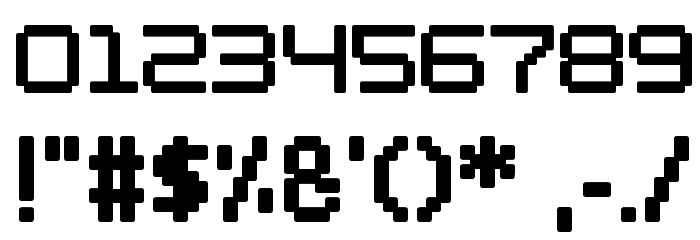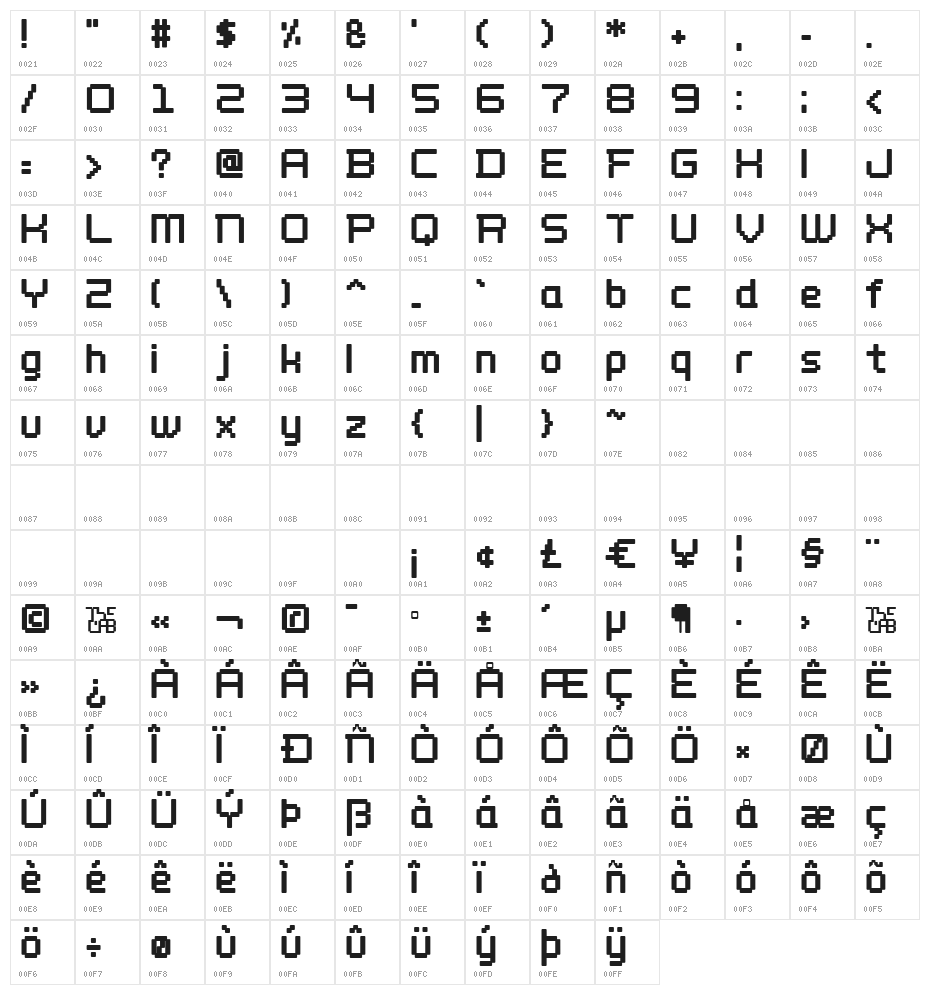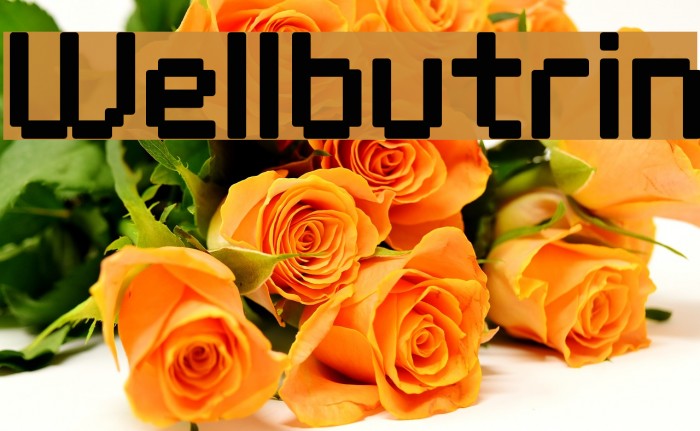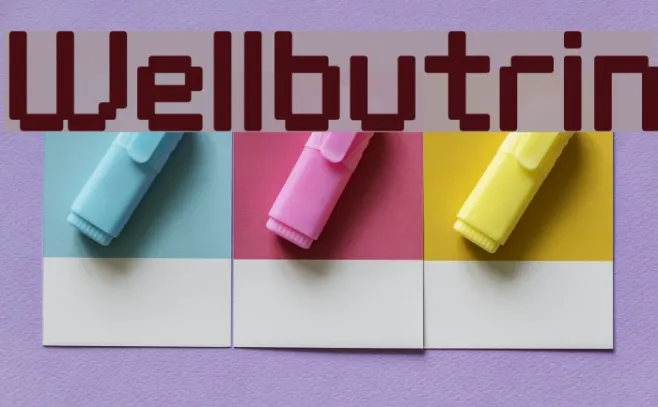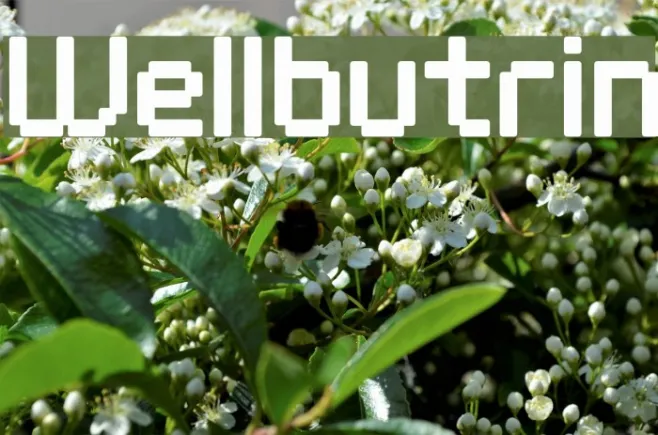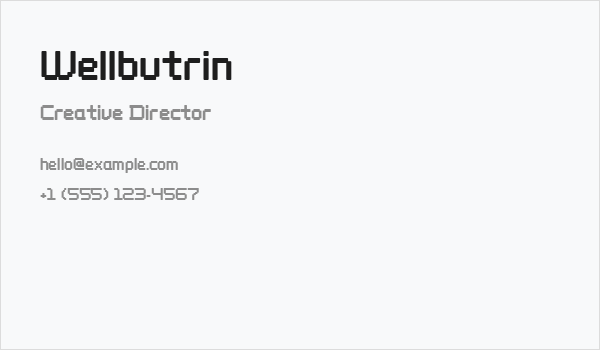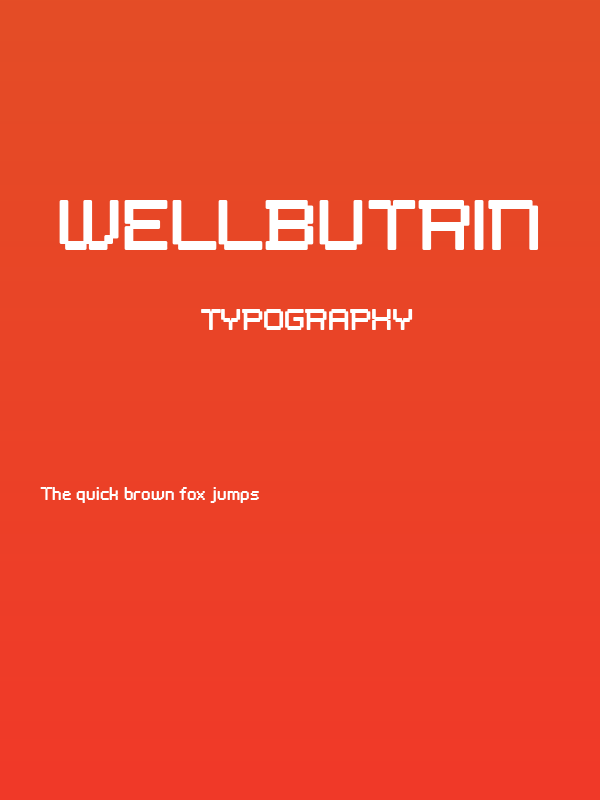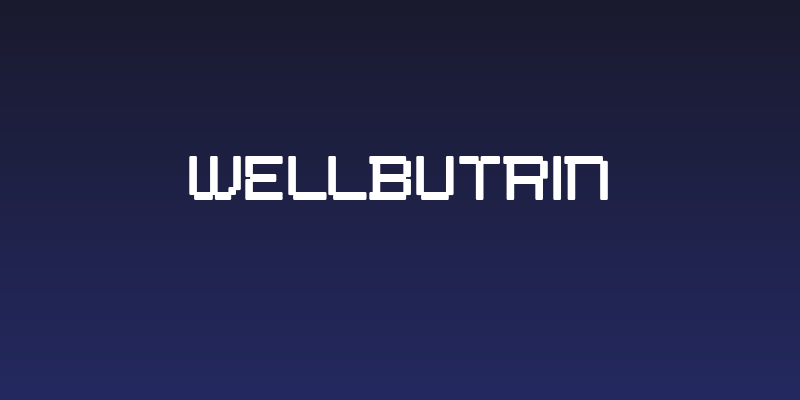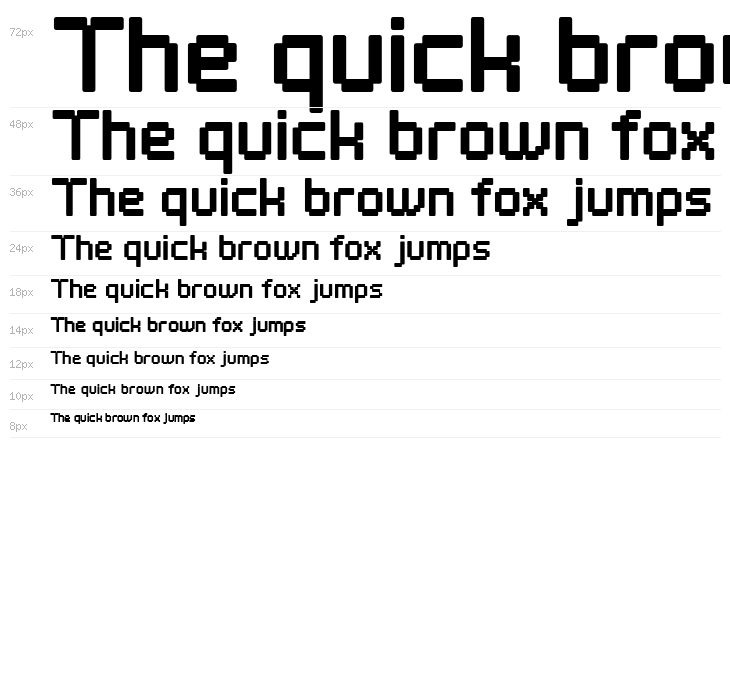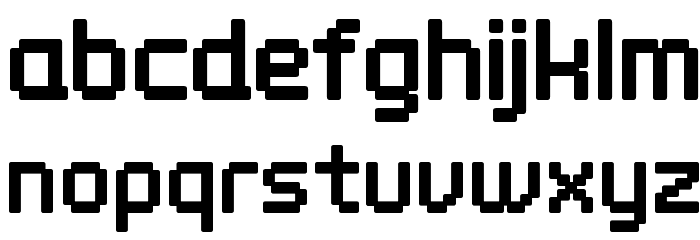
Wellbutrin Font
Wellbutrin Description
This font features a pixelated, blocky design reminiscent of early digital displays and retro video games. Each character is constructed with a uniform grid-like structure, giving it a distinctly digital and geometric appearance. The uppercase and lowercase letters maintain a consistent height, contributing to a cohesive and orderly look. The numerals and special characters follow the same pixelated style, ensuring uniformity across all glyphs. This font's bold, monospaced design makes it highly legible and suitable for digital-themed projects.
| Use Case | Headlines, Logos, Digital displays |
| Proposed Projects | Ideal for retro video game designs, digital art projects, tech-themed posters, and any creative work that requires a nostalgic digital feel. |